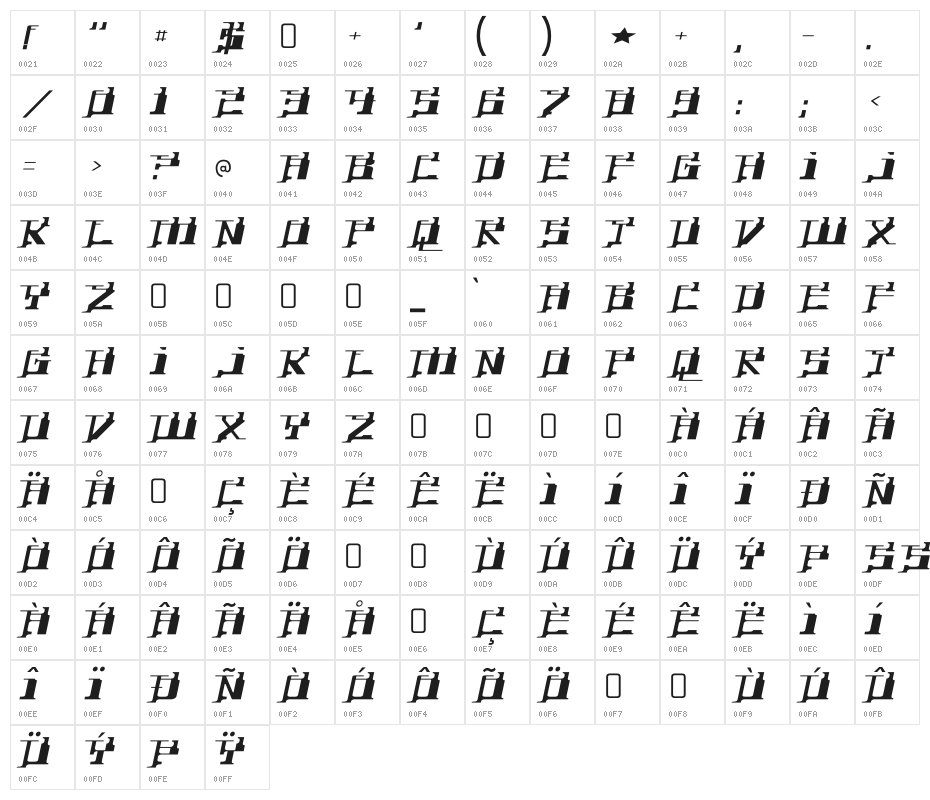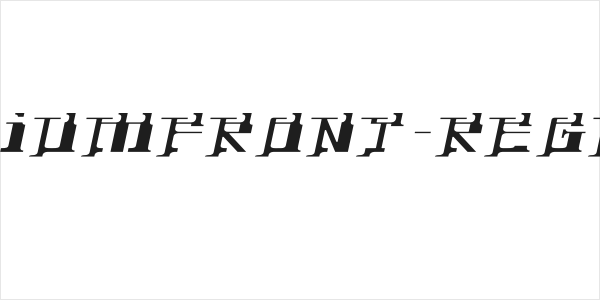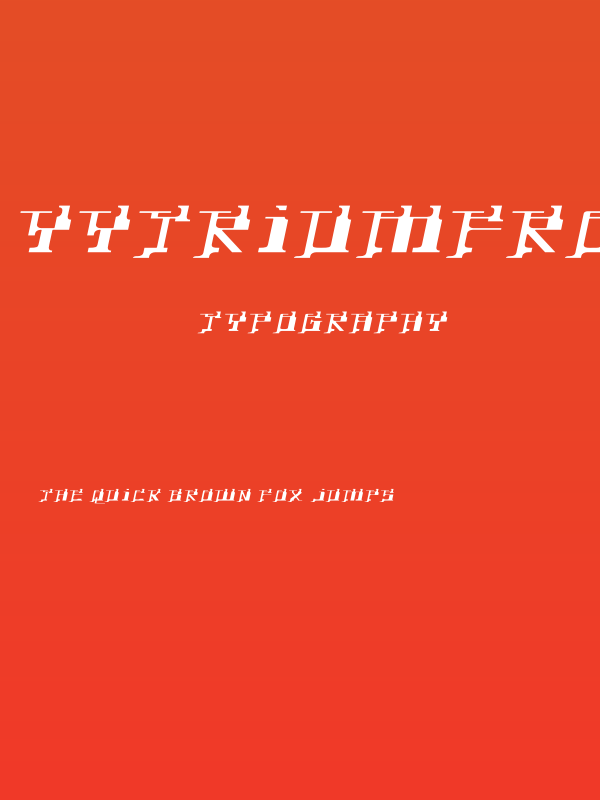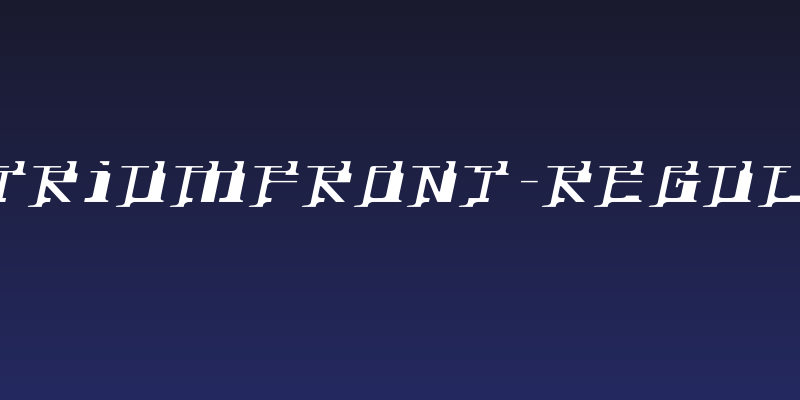
YytriumFront-Regular Font
YytriumFront-Regular Description
This font features a bold, angular design with a distinct modern flair. The characters are sharply cut with a futuristic aesthetic, showcasing a unique blend of geometric and abstract elements. The uppercase and lowercase letters maintain a consistent style, with exaggerated serifs and a slight slant that adds a dynamic feel. The numerals and special characters follow the same design principles, ensuring uniformity across all glyphs. The overall appearance is striking and memorable, making it suitable for projects that require a strong visual impact.
| Proposed Projects | Ideal for branding, posters, video game titles, and sci-fi themed projects. |